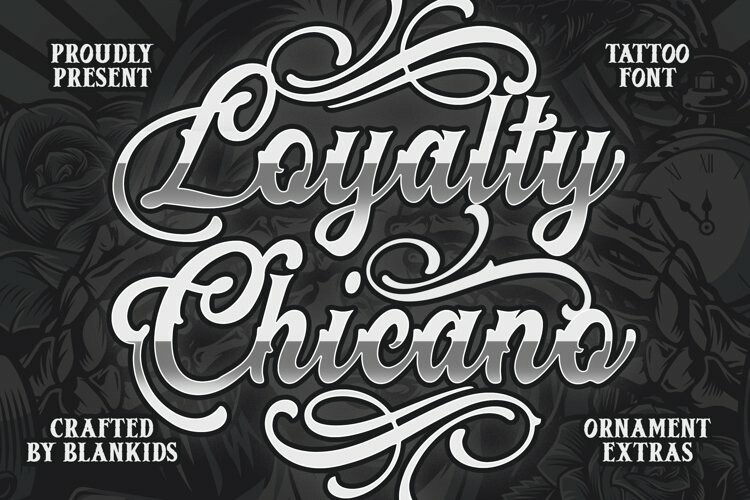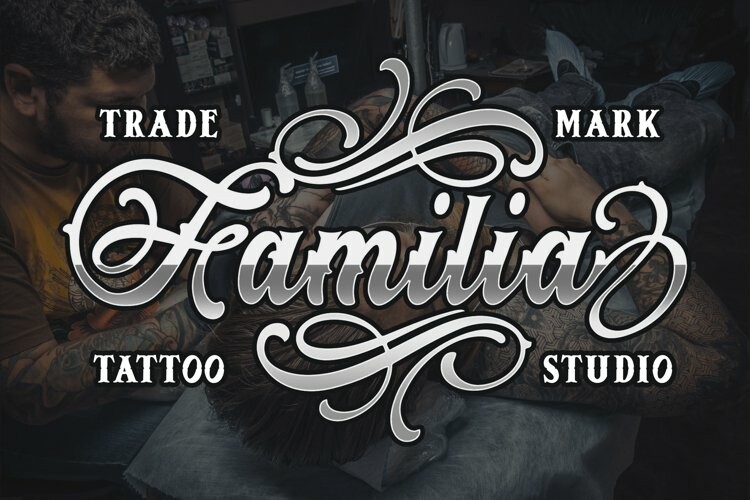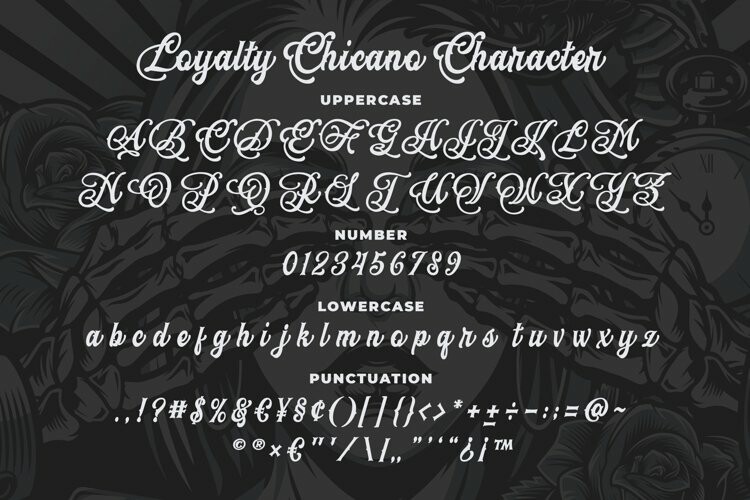
Loyalty Chicano Font
Loyalty Chicano FontLoyalty Chicano a Script Tattoo Font, Inspiring from Ornamental Tattoo style typography. This font is perfect for a design that makes it more attractive and playful. made with a very good level of aesthetics making this font suitable for book cover, children book, comic, poster, packging, merchandise, logotype and much more.